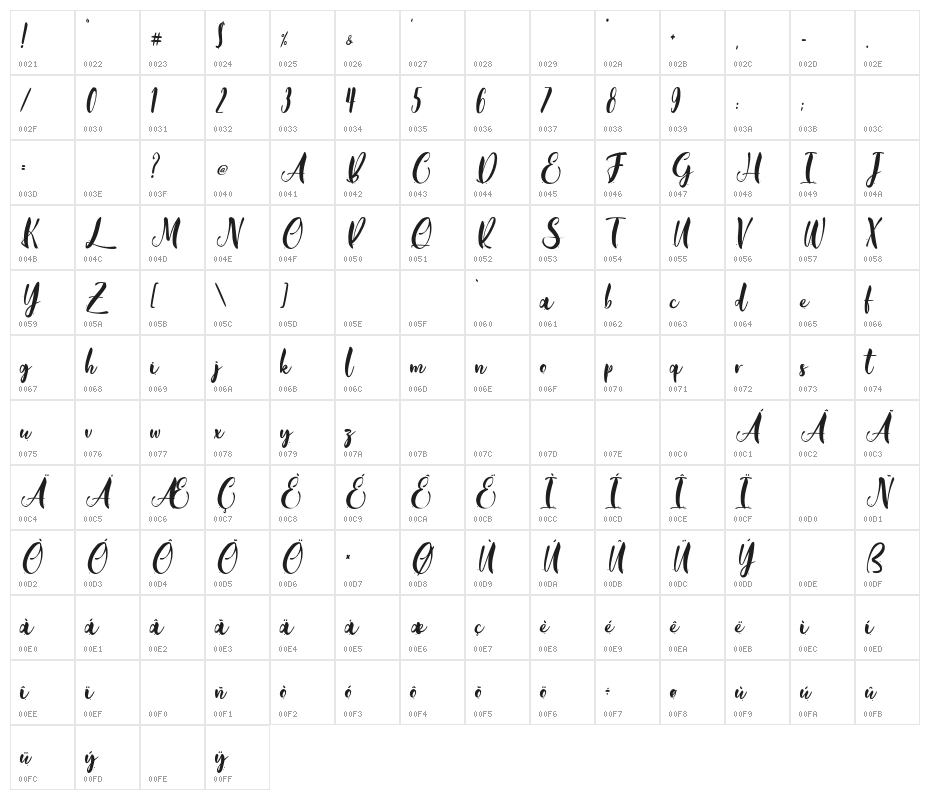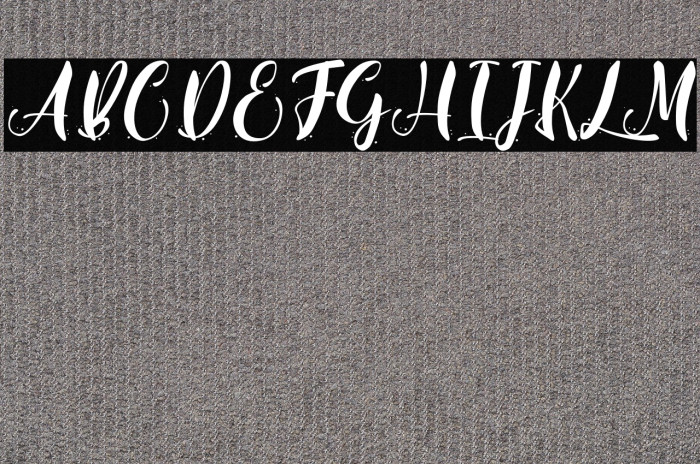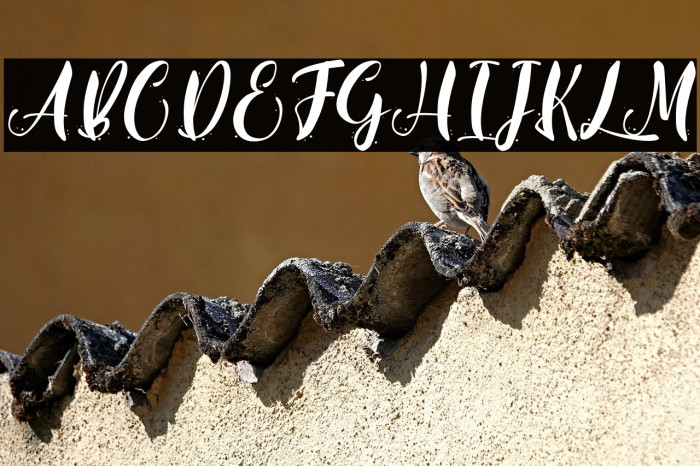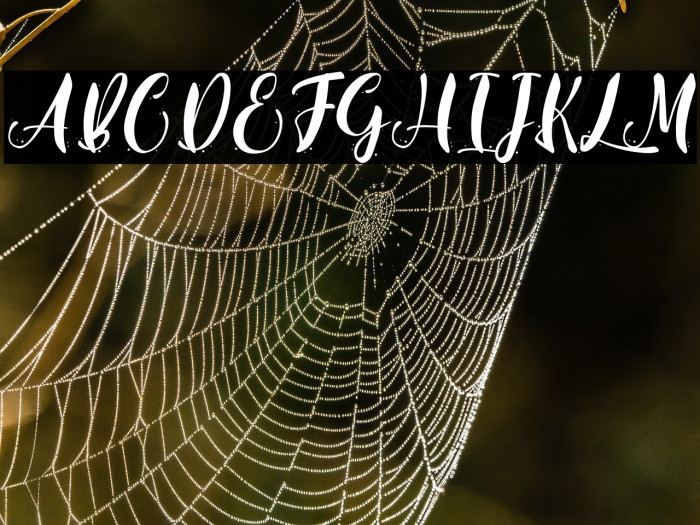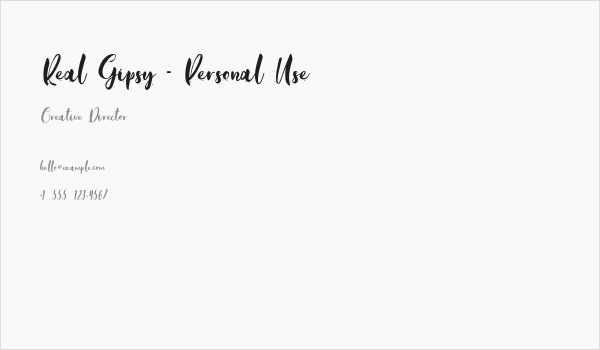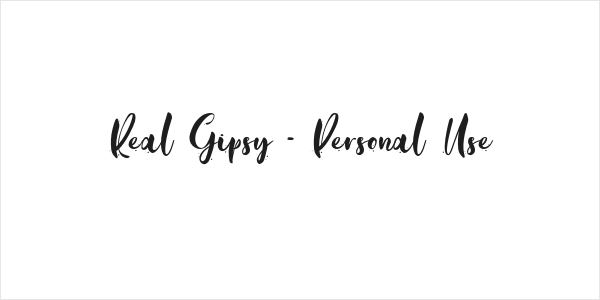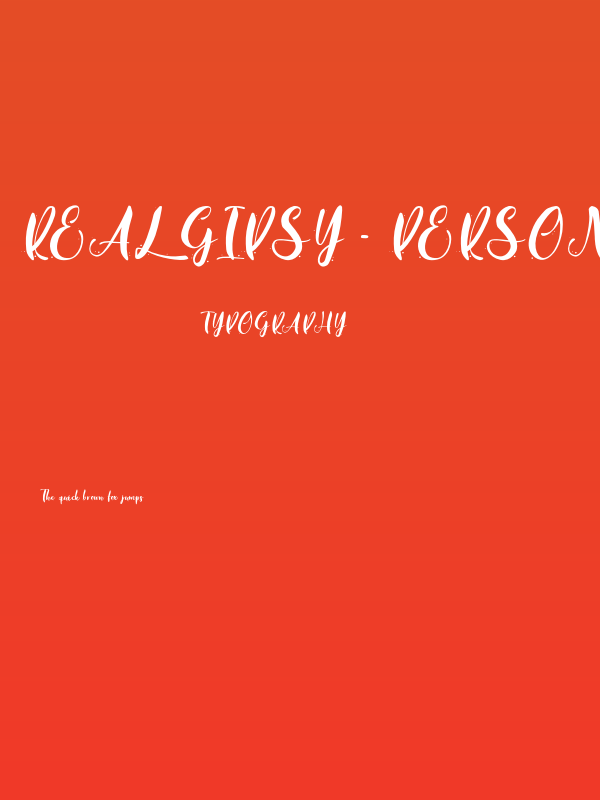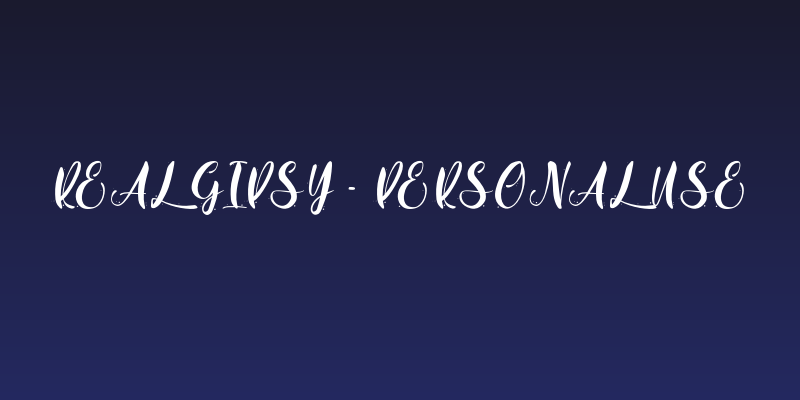
Real Gipsy - Personal Use Font
Real Gipsy - Personal Use Description
This font features a dynamic and expressive script style, characterized by its fluid, handwritten appearance. The letters are elegantly connected, with a playful and artistic flair, making it visually engaging. The uppercase letters are bold and prominent, while the lowercase letters maintain a consistent flow, adding to the overall aesthetic. The numerals and special characters complement the alphabet with similar stylistic elements, ensuring a cohesive look. The font's design includes subtle ink splatters and variations in stroke width, adding a touch of authenticity and creativity.
Use CaseLogos, Headlines, Artistic projects
Proposed ProjectsIdeal for creative projects such as invitations, greeting cards, branding, and artistic posters.